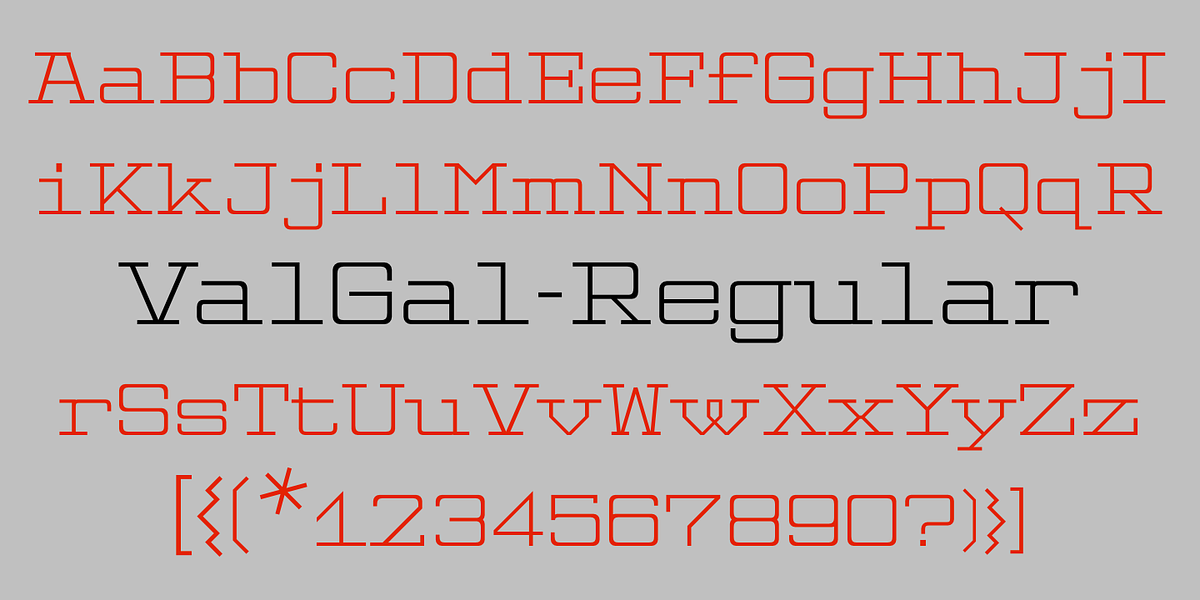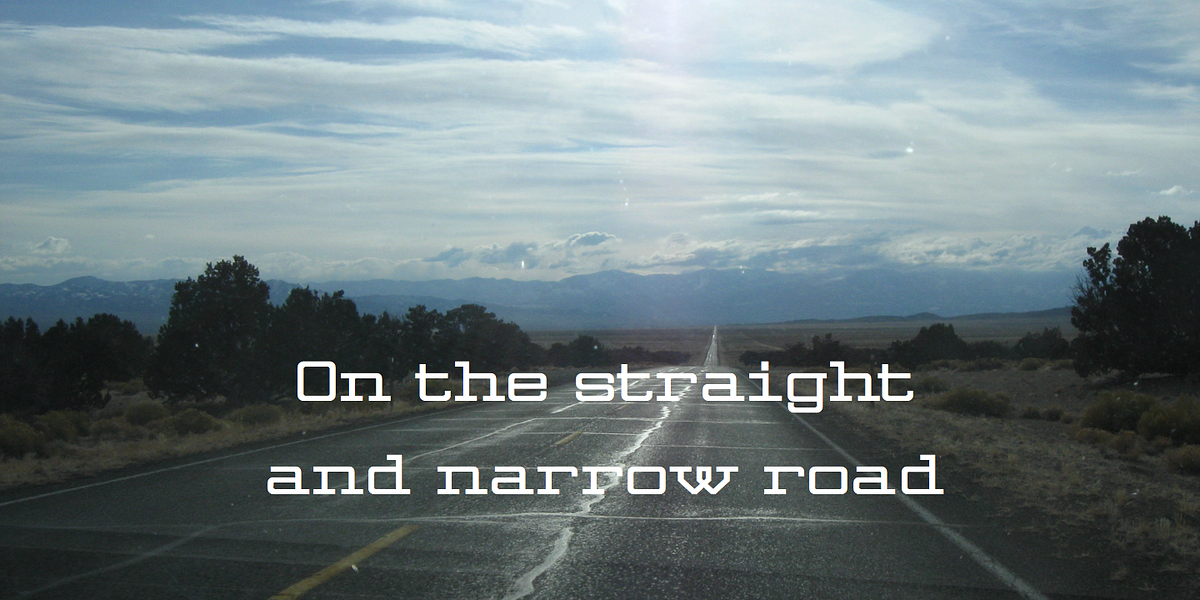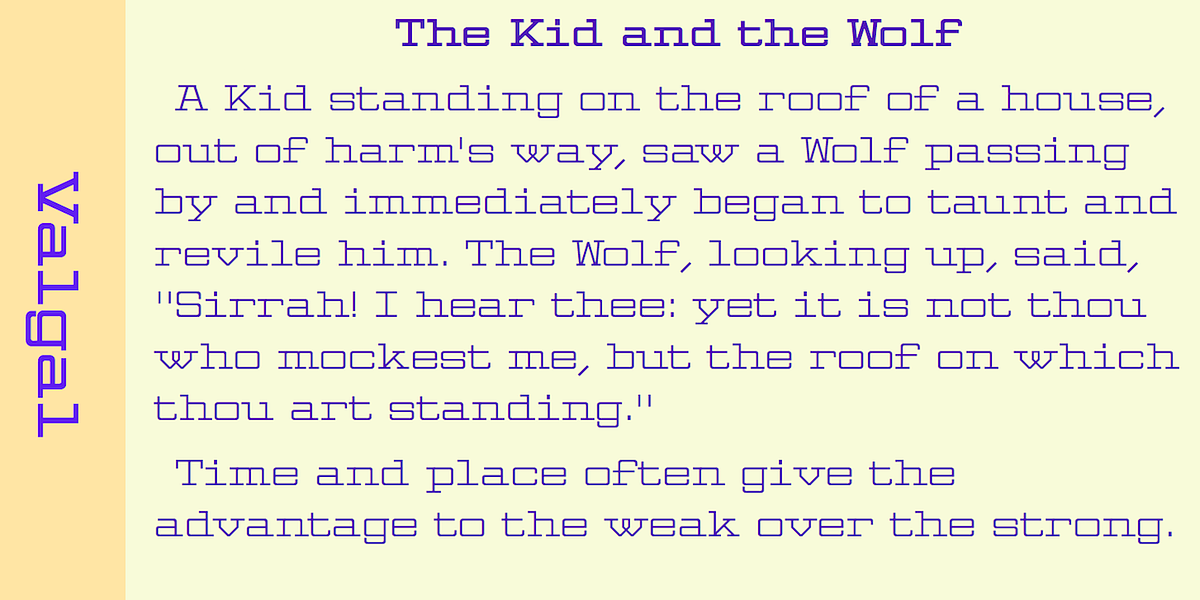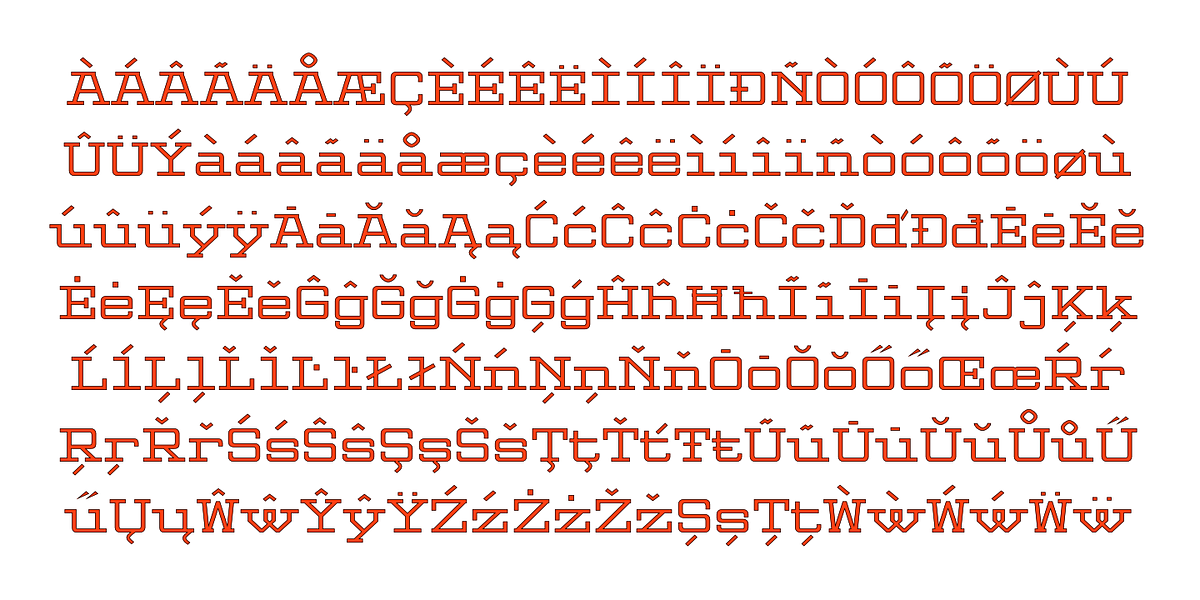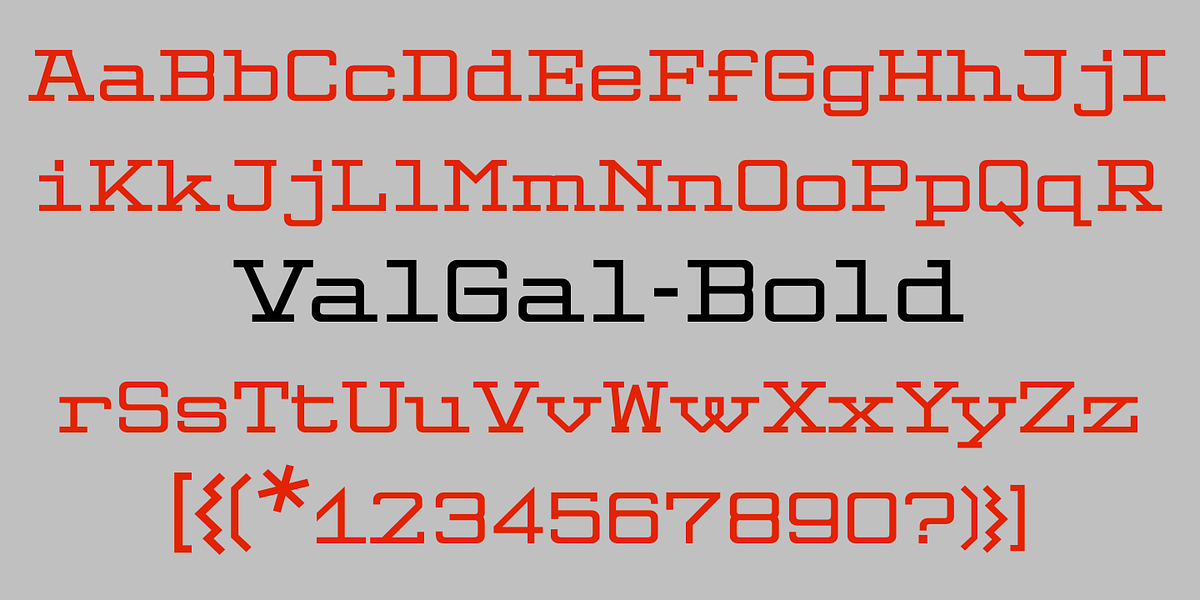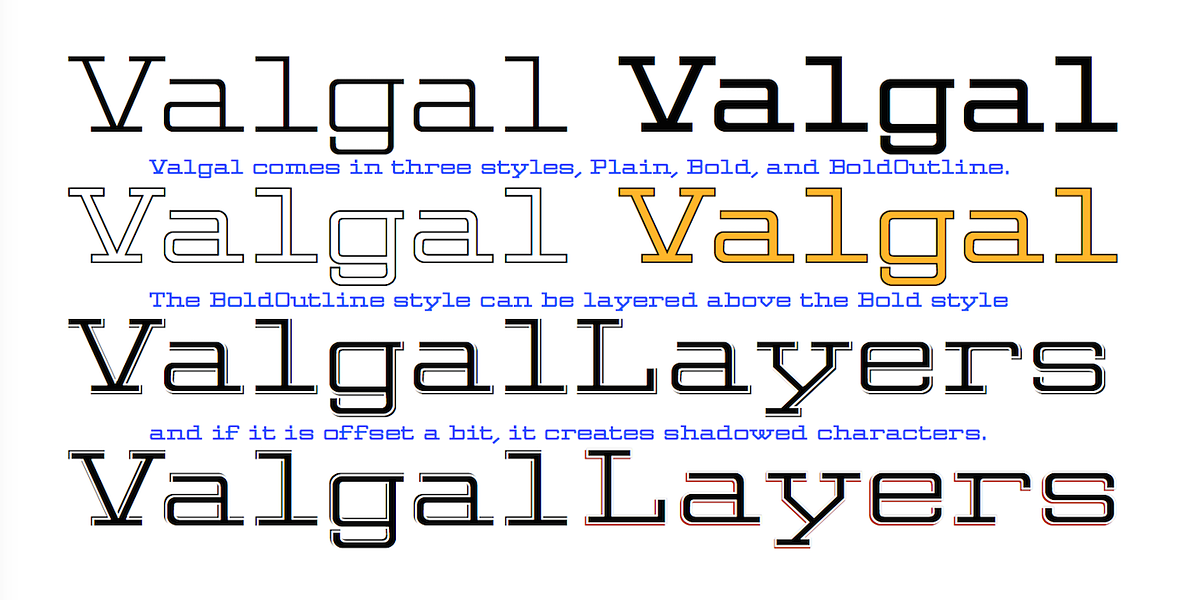
Valgal
Valgal is a distinctive font characterized by its wide and square forms. Its prominent slab serifs contribute to a bold and masculine aesthetic. The font comes in plain and bold weights, with the bold weight featuring an outline style that can be layered for visual impact.